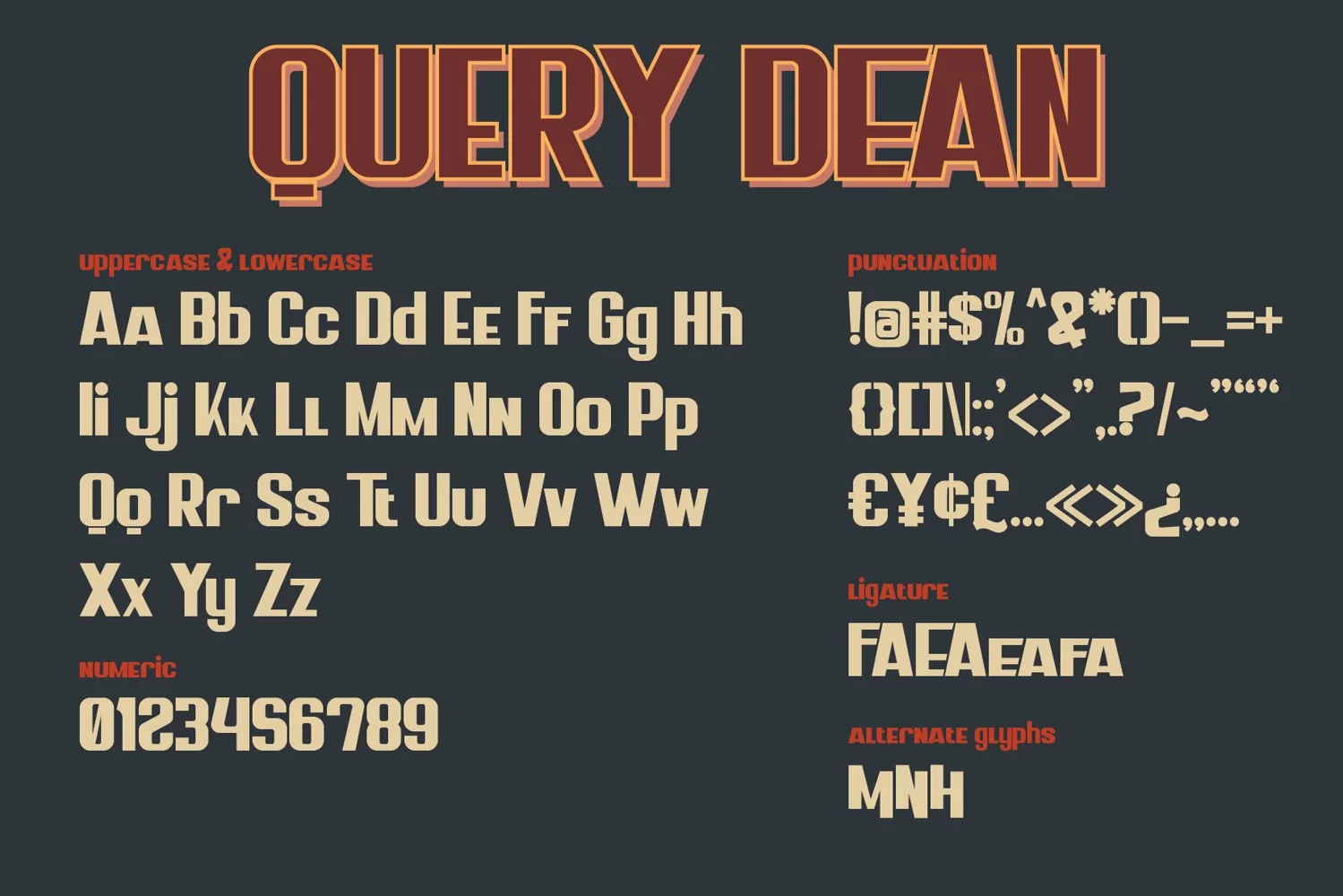
Query Dean
Query Dean Font
This pair was inspired by retro logo summer camp title poster that i saw on some coffee shop, It was crafted by hand specially to add natural handmade feeling in its brand identity than i make it clean with pentool.
If you need a font for with retro sans style, Query dean font is grat choice for you to make your design authentic and unique.
Query dean font has 183 character set included Query dean Font is very good looking in retro logo, movie poster design, youtube tumbnail, labels, product packaging, invitations, advertising and others.